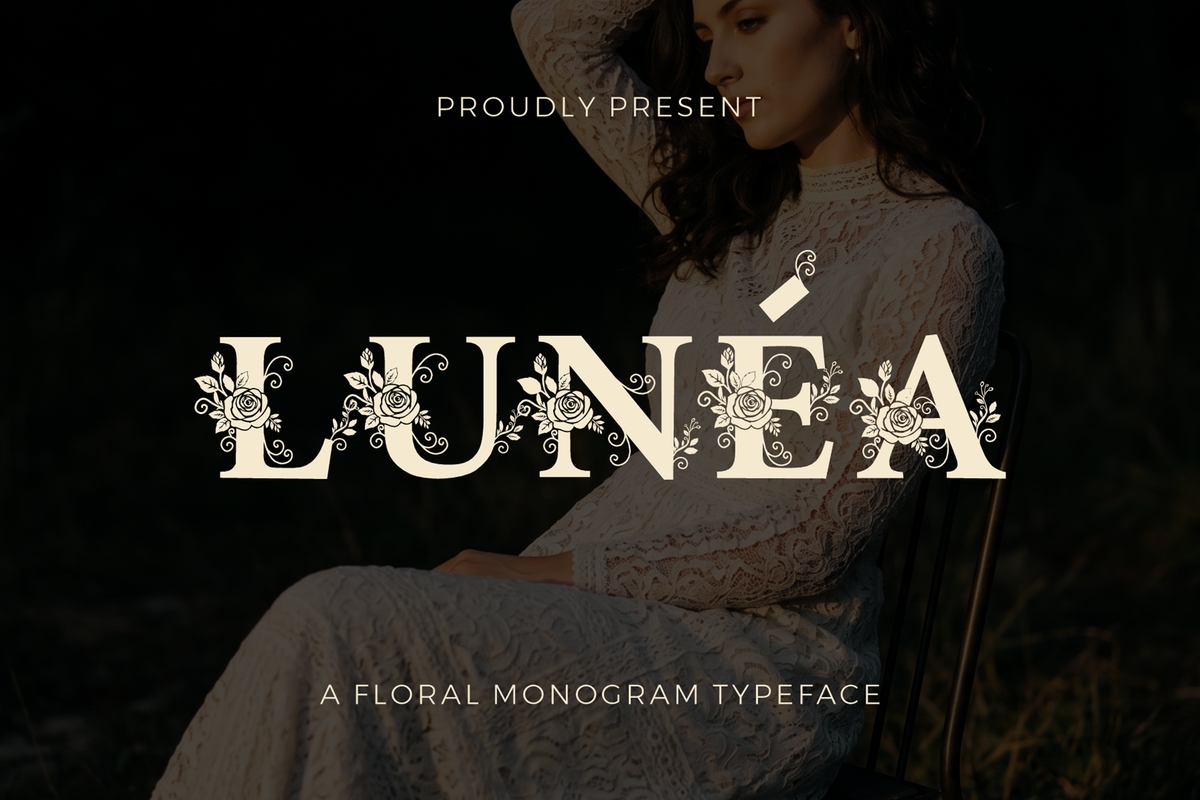
Lunéa
Lunea Floral Monogram Font emerges as a typographic masterpiece that radiates natural beauty, timeless grace, and a profoundly deep sense of organic aesthetics. This typeface is specifically engineered to meet the sophisticated demands of professional designers who crave a flawless fusion of bold capital letter structures and the delicate softness of rose illustrations alongside gracefully intertwining leaf vines that flourish naturally across every curve. The OpenType Font (OTF) and TrueType Fo